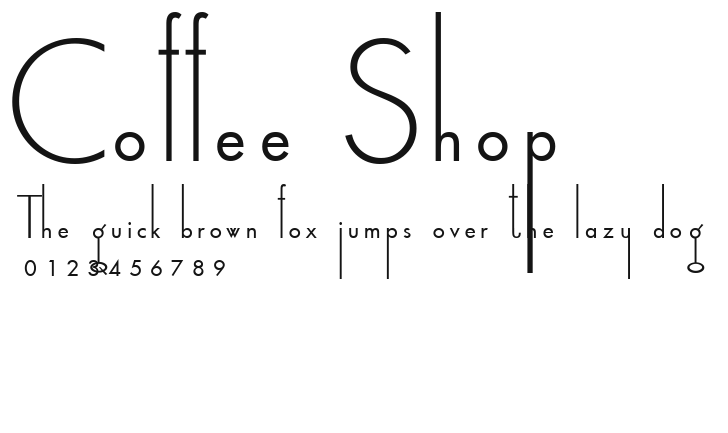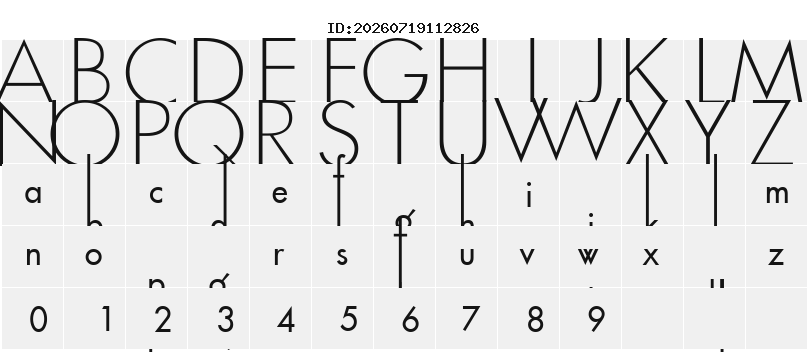
• Font Name: Coffee Shop
Coffee Shop.ttf is a modern, elegant sans-serif font designed for ultimate readability and visual harmony. Perfect for branding, headlines, web design, and print materials.